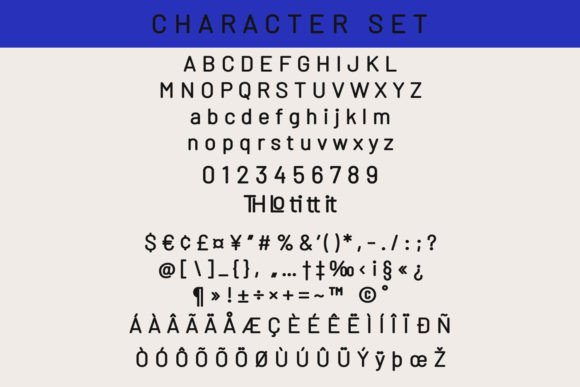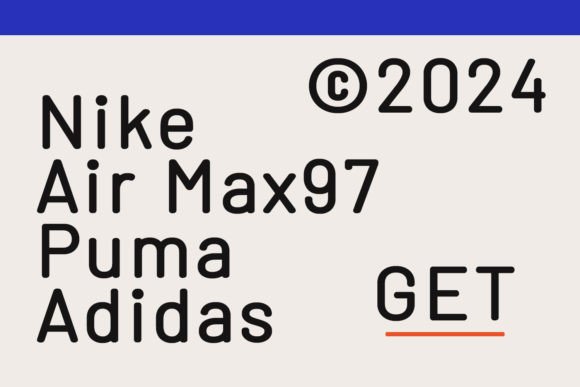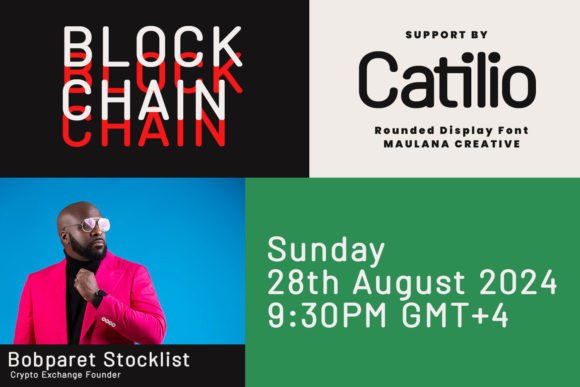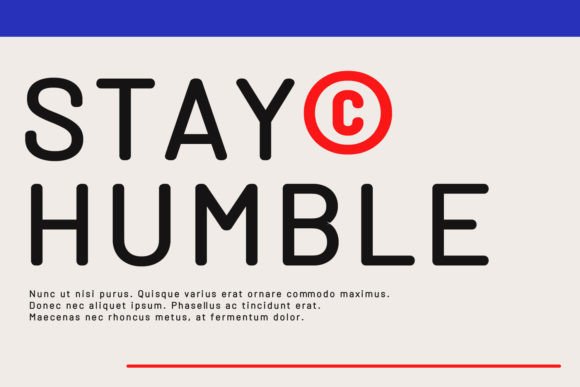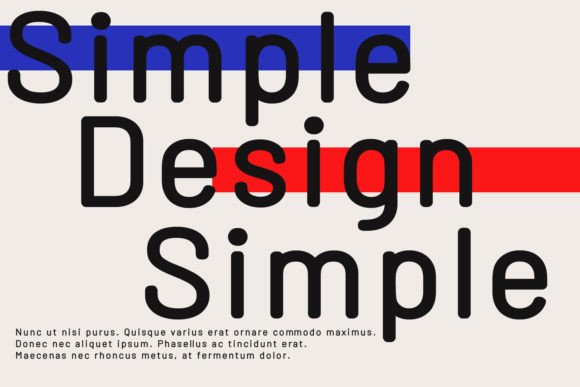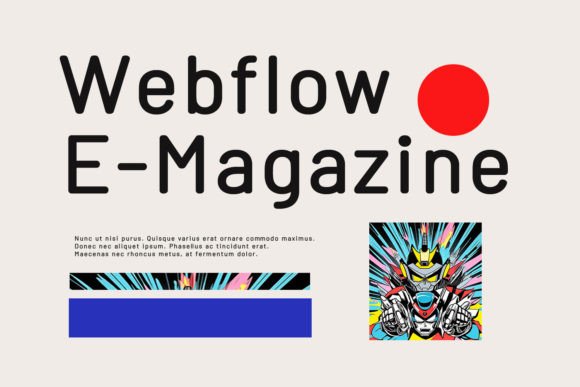
Have you ever stared at a blank page, struggling to find the perfect font to match your design vision? It’s a familiar feeling for many creatives, but what if I told you there’s a font that can instantly elevate your work and make it shine? Enter the Catilio Font, a smooth and rounded sans serif font that’s perfect for display use.
Catilio Font is designed to be easy to read, with clean, simple lines that make it great for titles, logos, and short texts. Its bold and friendly letters give your designs a modern and welcoming feel, making it a valuable asset for any designer looking to add a touch of sophistication to their work.
Catilio Font Key Features
- Unique Characteristics: Catilio Font features a unique blend of modern and classic elements, making it perfect for creating eye-catching headlines and titles.
Designer Review: Catilio Font
Overall, I found the Catilio Font to be an interesting and quirky addition to any digital project. ✨ The font’s unique blend of vintage and modern elements makes it a great choice for those looking to add some personality to their designs. The font’s rounded edges and subtle flair make it particularly well-suited for use in headings and titles.
The Catilio Font also handles smaller text sizes relatively well, making it a good choice for body text or captions. However, at larger sizes, the font can start to feel a bit cluttered and overwhelming. ✨ In general, I found that the font works best when used in moderation, with a clear understanding of its strengths and limitations.
- Rounded edges and subtle flair make it great for headings and titles
- Handles smaller text sizes well
- Unique blend of vintage and modern elements adds personality to designs
- Can feel cluttered and overwhelming at larger sizes
- May not be suitable for use in formal or professional settings
- May require careful balancing to achieve optimal results
The Catilio Font is a solid choice for designers looking to add some personality to their projects. While it may not be the most versatile font, it has a clear aesthetic and can be used effectively when paired with other fonts and design elements. With careful consideration of its limitations, the Catilio Font can be a valuable addition to any design toolkit.